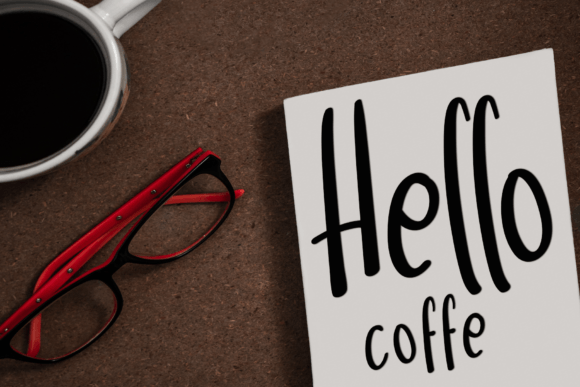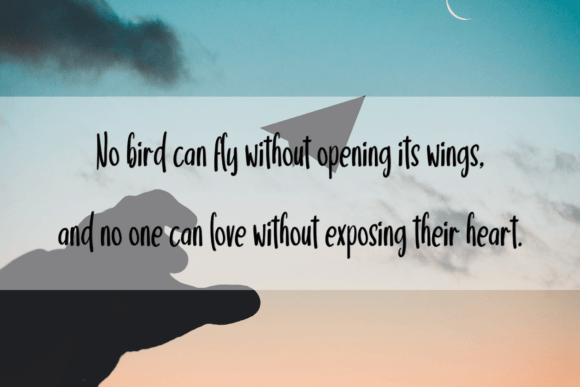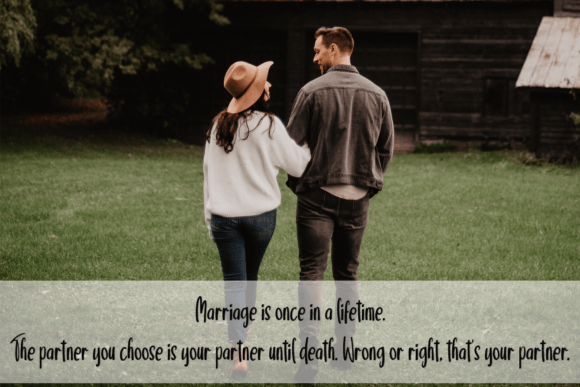
Farm House Font
About the Farm House Font
Add a touch of class to your work with the Farm House Font, a truly exceptional typeface. Farm house is a cool, simple, and playful handwritten font. Incredibly versatile, this font fits a wide pool of designs, elevating them to the highest levels. Add this font to your favorite creative ideas, and notice how it makes them come alive!
Farm House Font’s playful handwritten style works best in headlines, short text blocks on branding materials, and playful packaging designs. It adds a touch of friendly approachability, ideal for projects targeting a younger demographic or those with a casual, rustic aesthetic. Avoid using it for body text or lengthy paragraphs; its informal nature makes it less legible for extended reading.
The font’s inherently friendly personality pairs well with clean sans-serif fonts like Open Sans for a balanced contrast, or a more geometric sans-serif for a modern feel. Consider pairing it with a simple serif like Lora for a touch of classic elegance or a delicate script font for added whimsy in specific applications, such as logos or invitations.
Its informal and approachable nature makes it unsuitable for projects requiring a high degree of professionalism or formality. Use it where a sense of handmade charm and relaxed energy is desired.
Farm House Font Usage Examples
Farm House Font Example